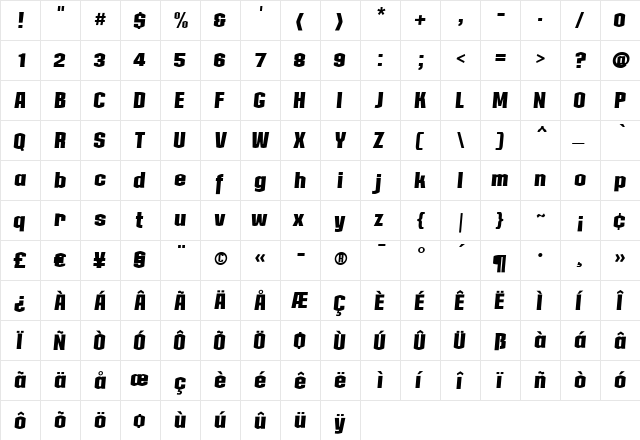
Collos Regular Font Preview
Collos Regular
Collos Regular Font Details
Design Context for Collos Typeface
Collos is a composed and adaptable typeface that performs quietly and consistently across a wide range of design contexts.
Pro Tip: Pair Collos with a font of contrasting weight or personality to build a more expressive typographic hierarchy.